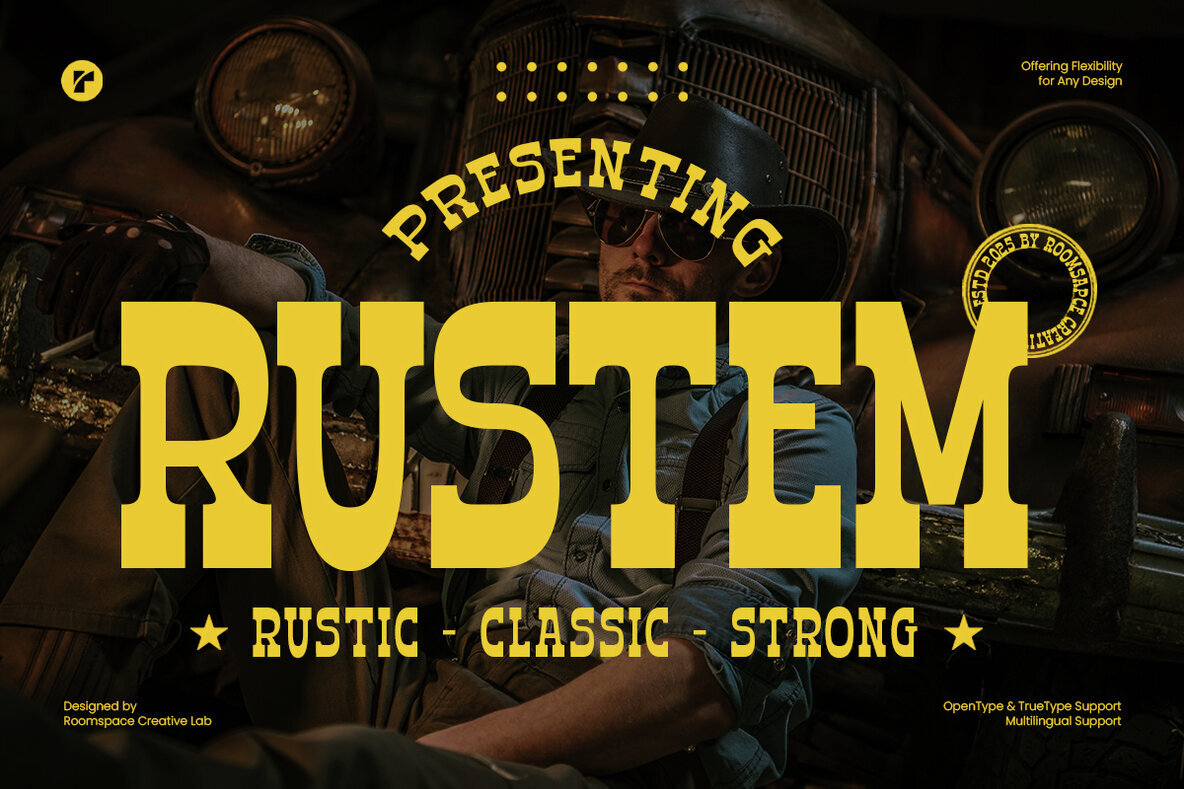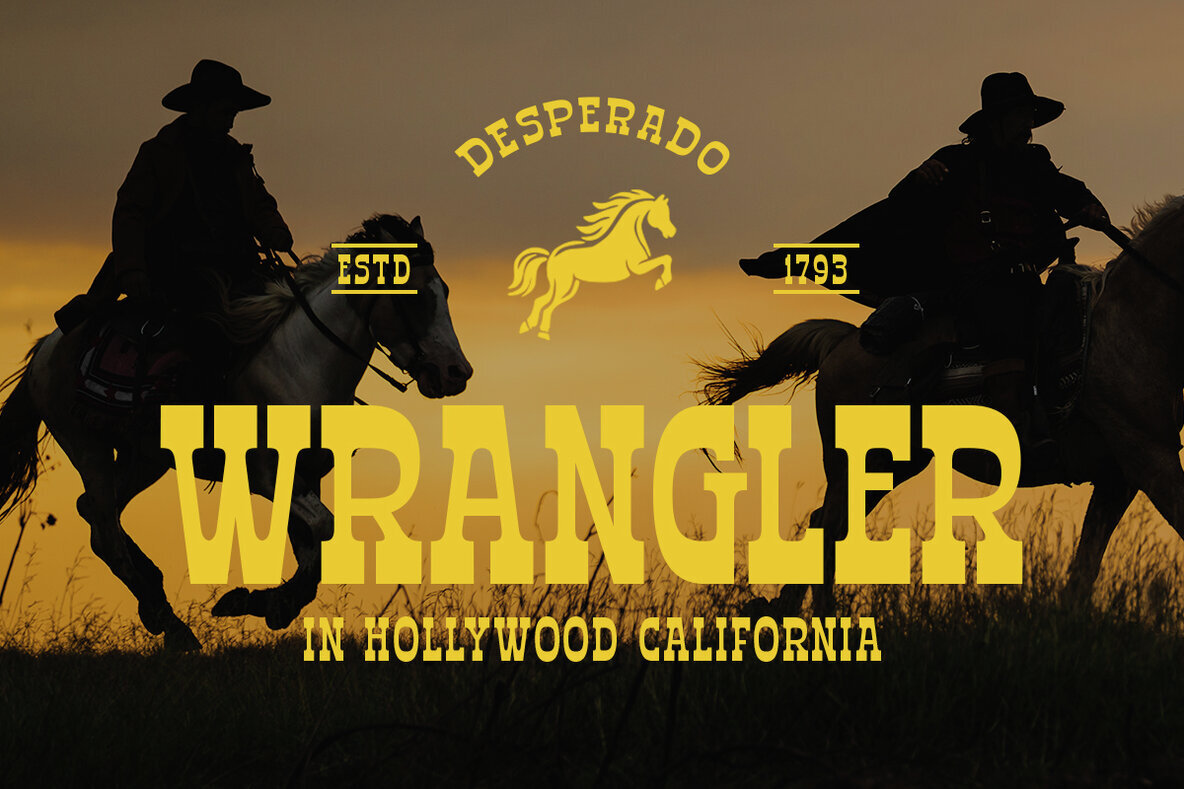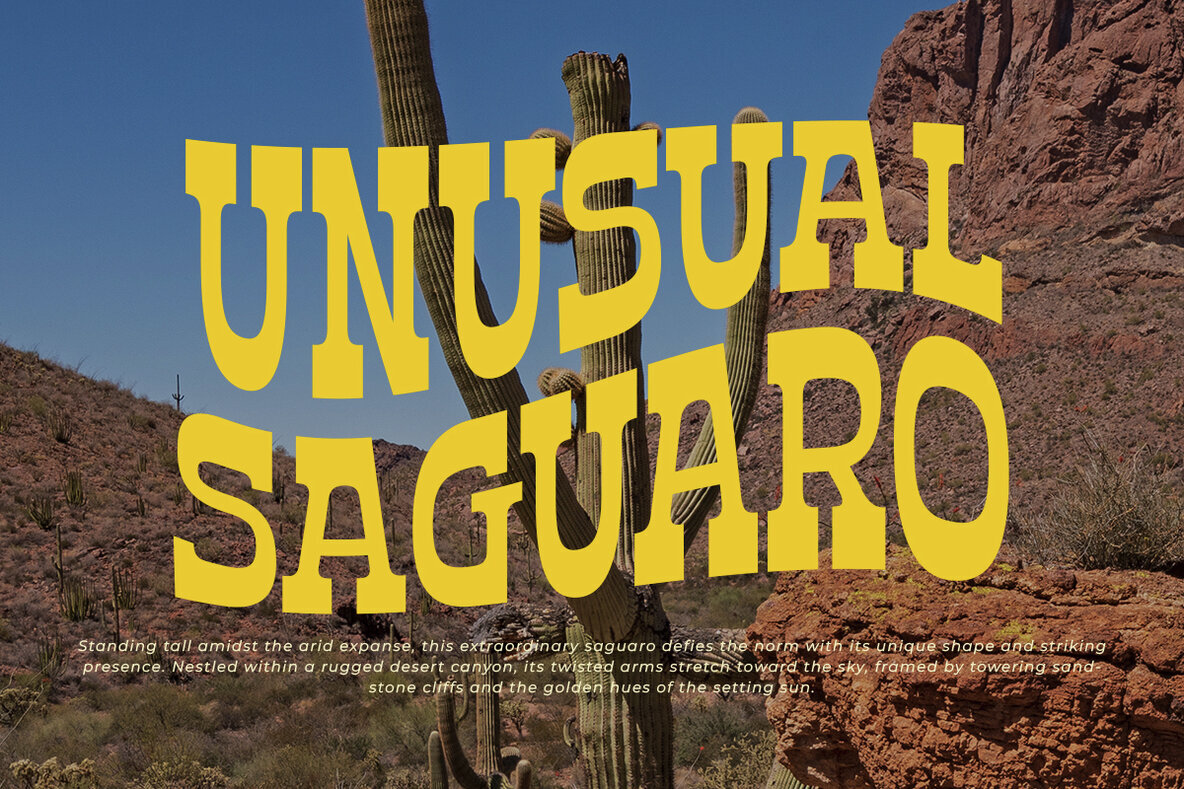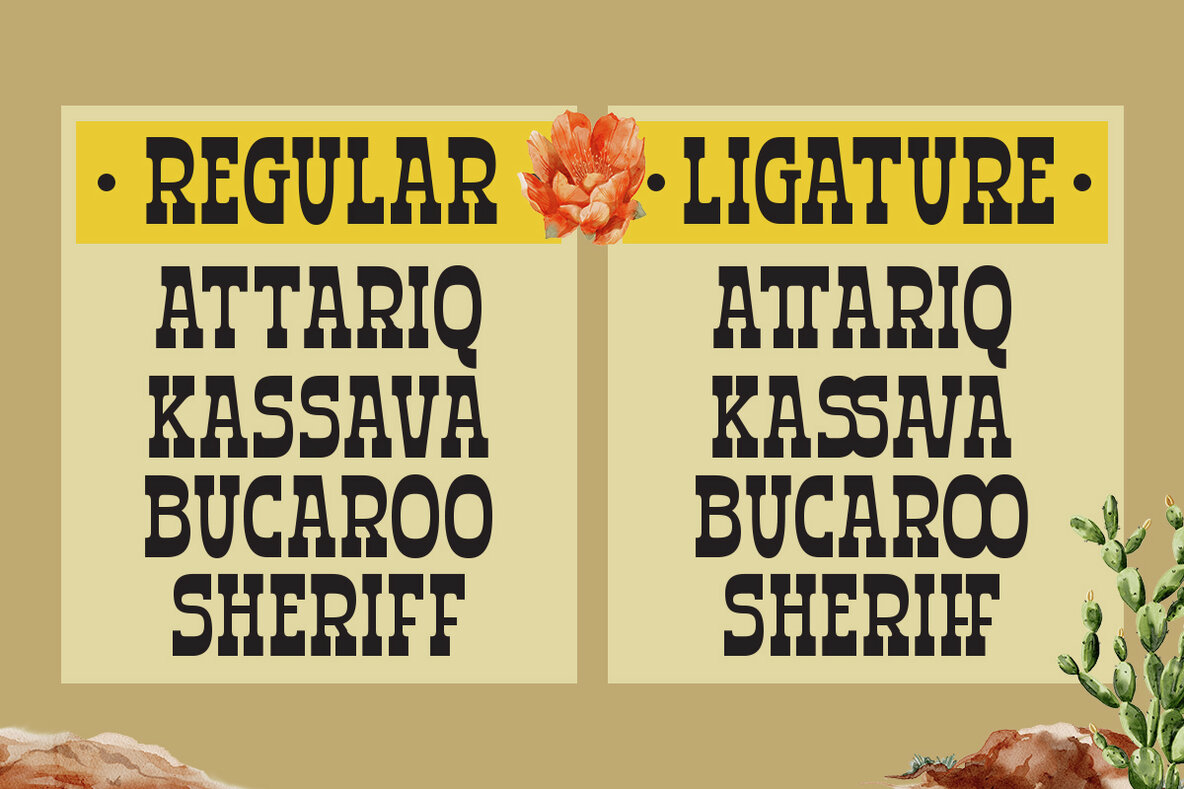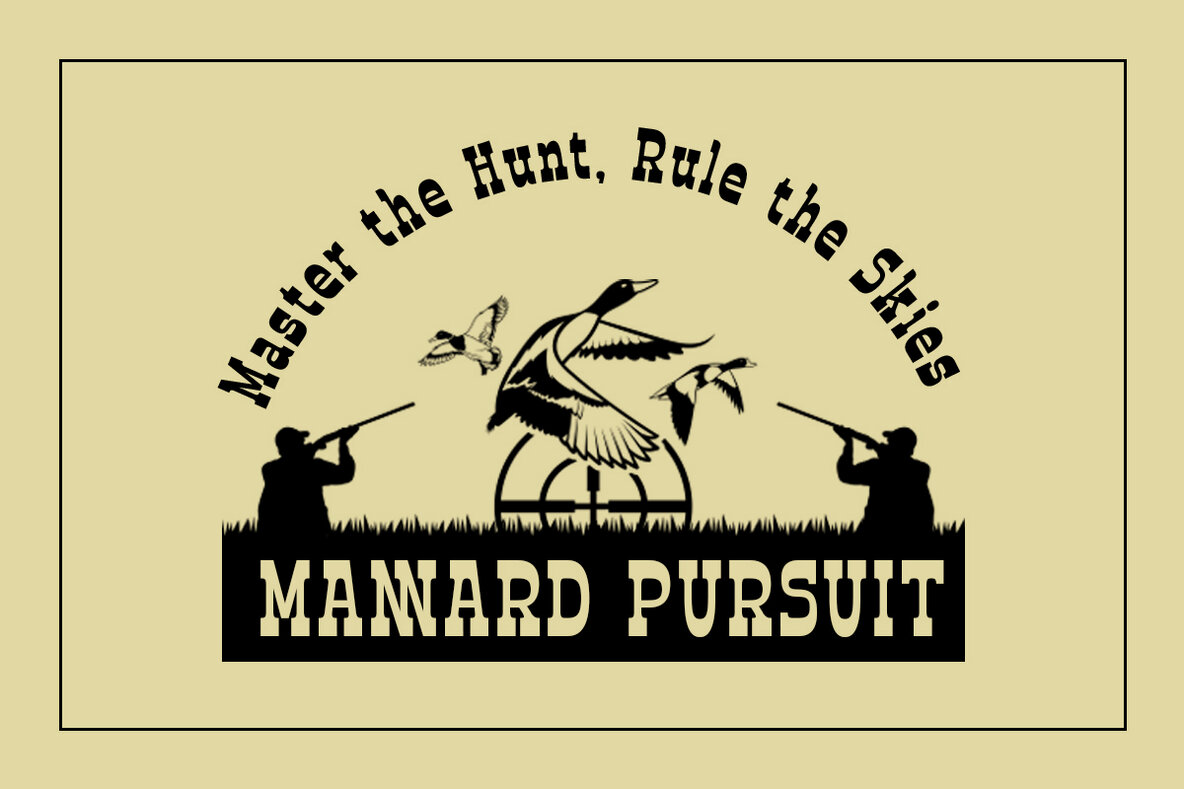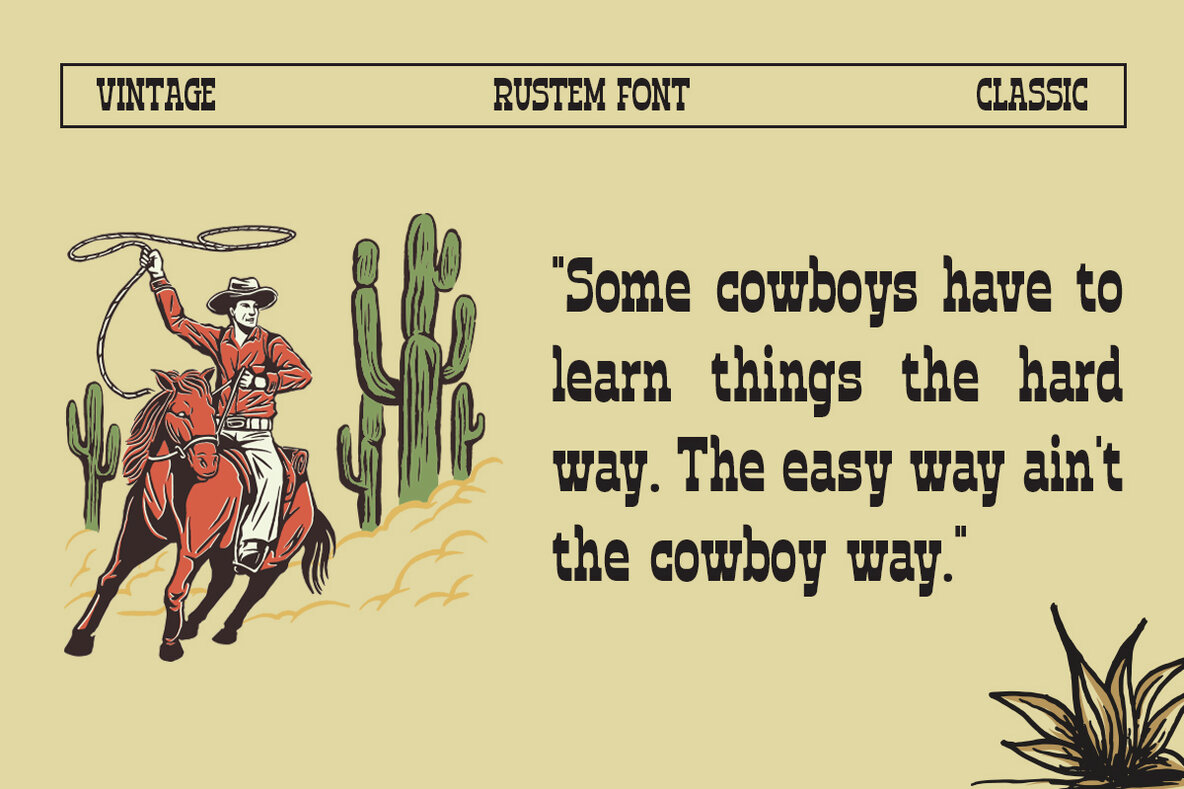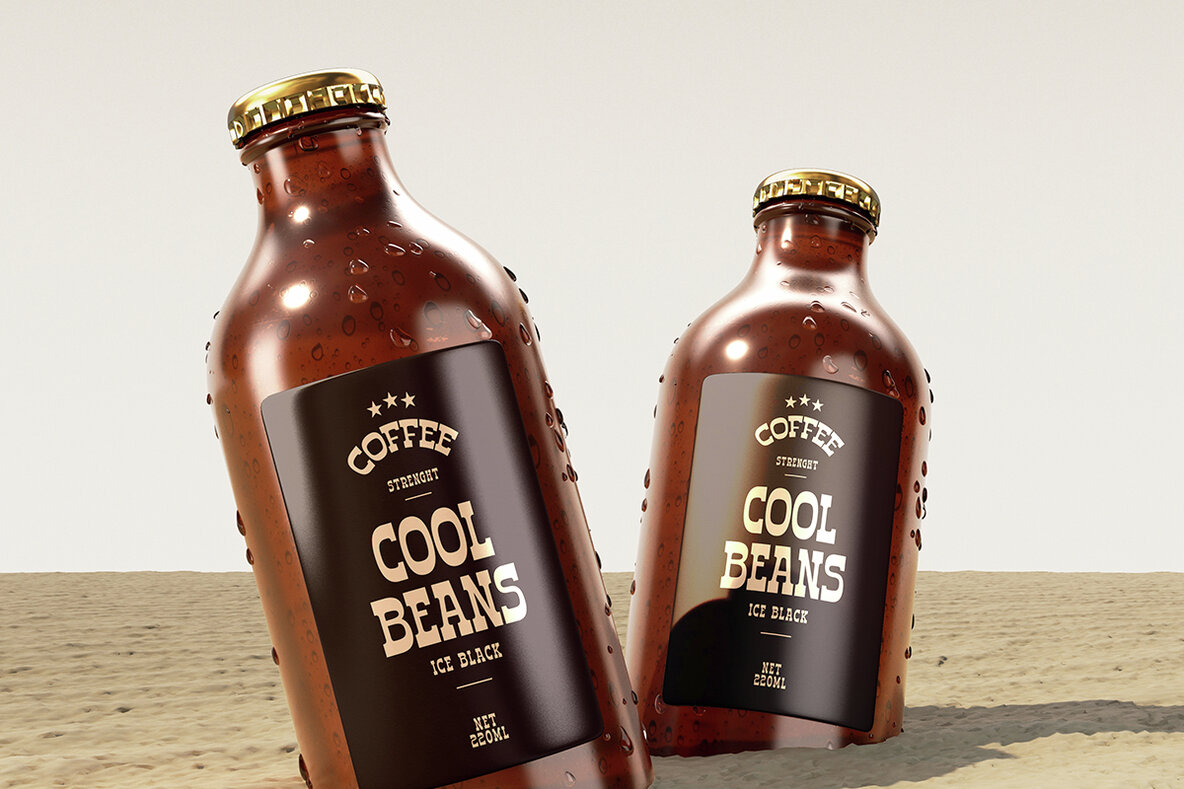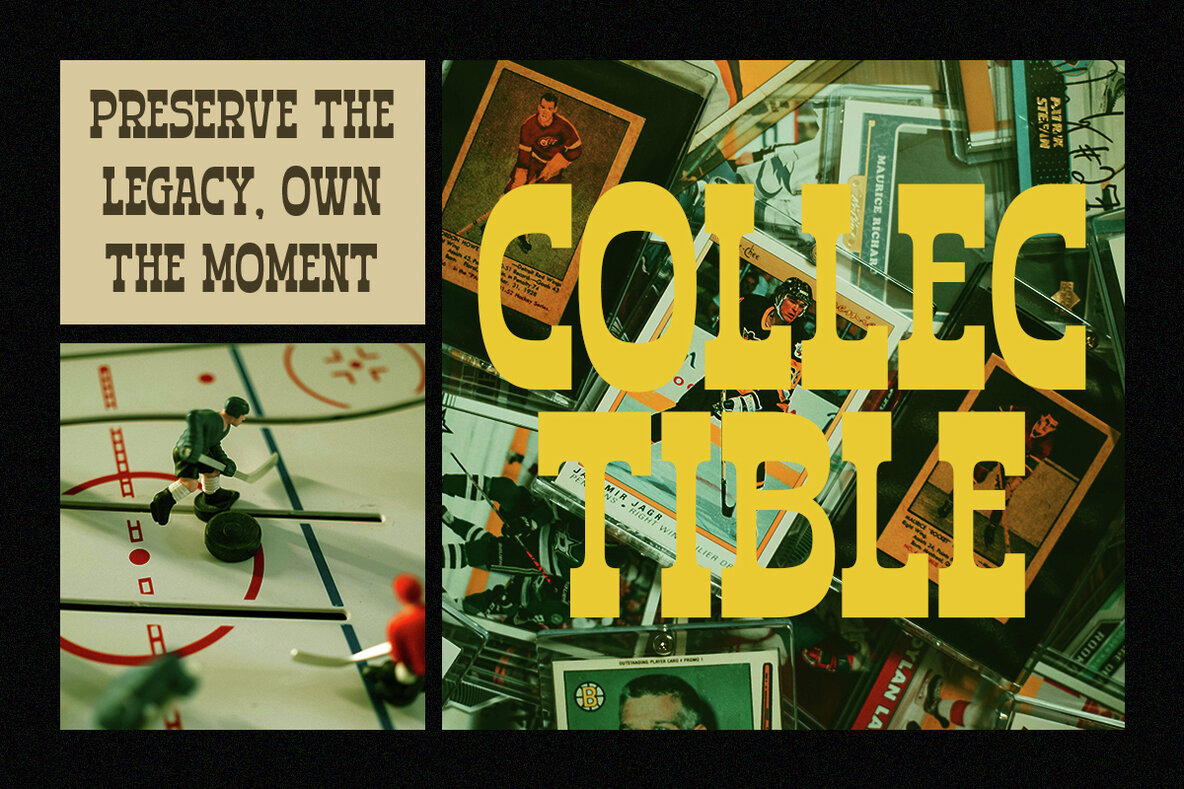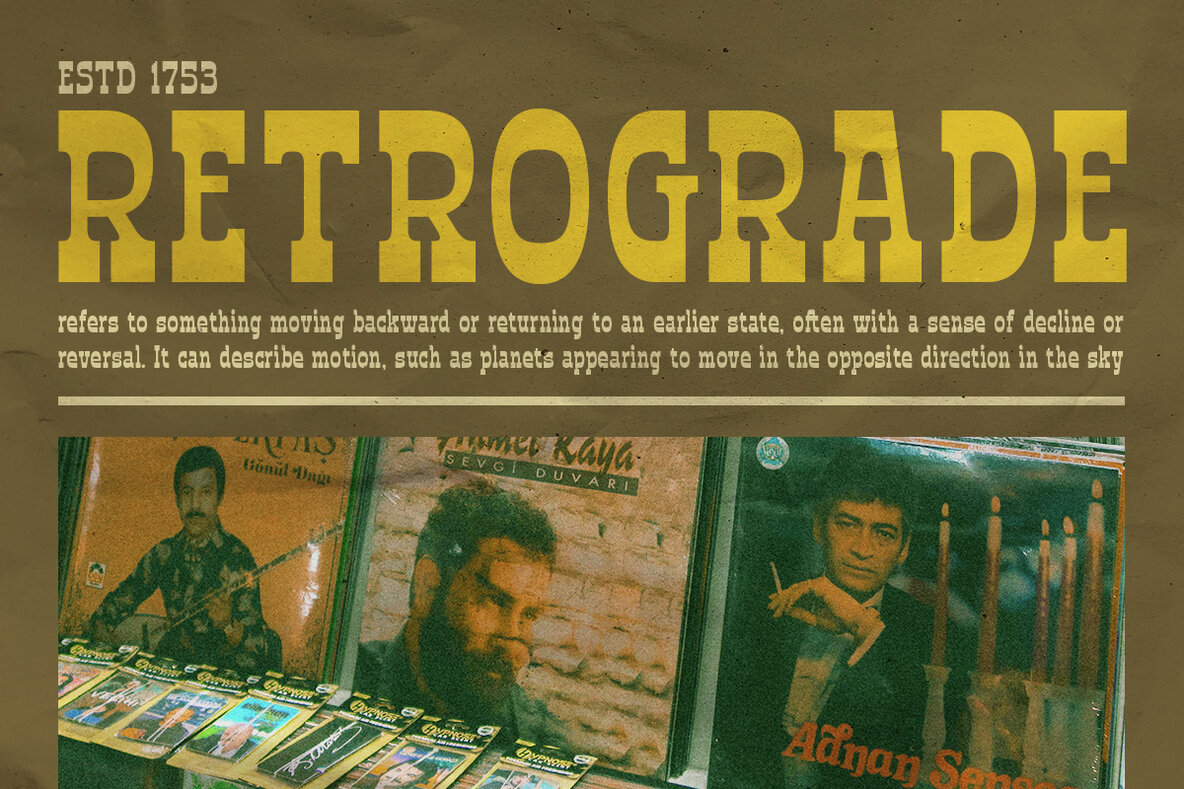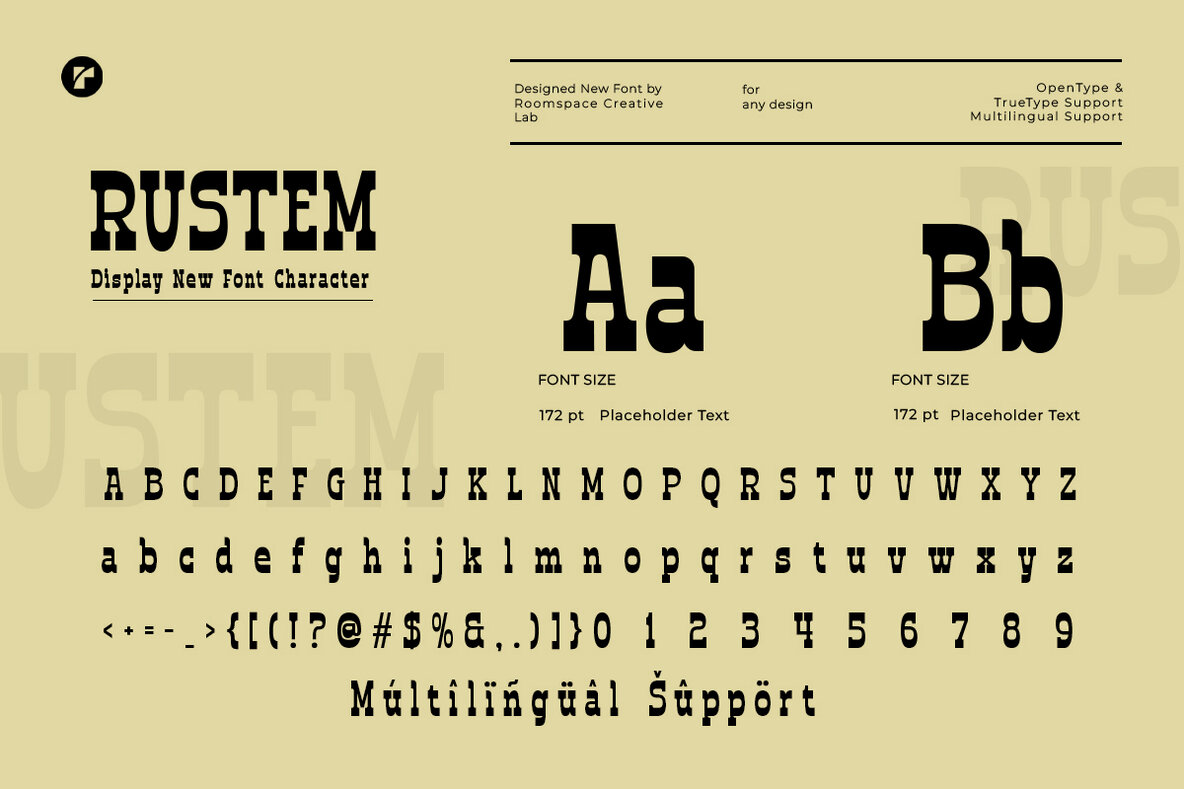
Rustem Font
Rustem Regular
Rustem bold, rugged spirit of the Wild West, a powerful vintage serif inspired by classic Western typography. Designed for those who crave strong, rustic aesthetics, Rustem blends bold letterforms with old-fashioned charm, making it a perfect choice for logotypes, branding, editorial design, signage, and high-impact headlines. With its thick, heavy strokes and classic Western details, Rustem evokes the essence of Americana, cowboy culture, and vintage saloon signage, all while maintaining a touch of elegance and versatility. Whether you’re crafting bold branding, rustic packaging, or eye-catching posters, Rustem delivers a nostalgic yet timeless appeal. Support: